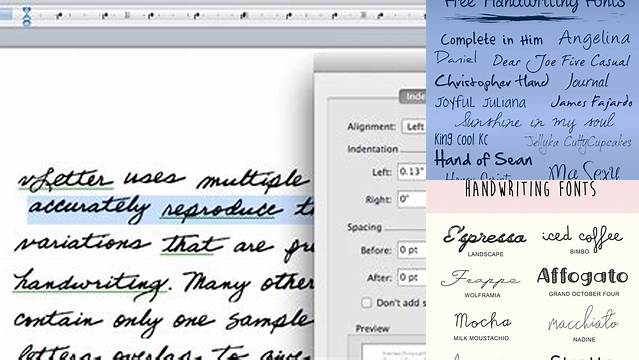
Get Cool Handwriting Fonts For Microsoft Word
Hey everyone! Are you looking to spice up your Microsoft Word documents with a personal touch? Tired of the same old boring fonts? Well, you're in luck! Today, we're diving into the world of free download handwriting fonts for Microsoft Word. I'm talking about those cool, handwritten-style fonts that can make your documents look more friendly, creative, and unique. Whether you're a student, a creative writer, or just someone who loves a good aesthetic, these fonts can seriously level up your game. We'll cover everything from where to find them, how to download and install them, and even some cool ways to use them to make your documents stand out. So, buckle up, because we're about to embark on a font-tastic journey!
Finding the Best Free Handwriting Fonts: Where to Look?
Alright, let's get started! The first step is, of course, to find these amazing free download handwriting fonts for Microsoft Word. Luckily, the internet is a treasure trove of freebies, and fonts are no exception. One of the most popular and reliable places to start is Google Fonts. Google Fonts offers a vast library of fonts, including many beautiful handwriting styles. The best part? They're all free and open-source, meaning you can use them for personal and commercial projects without any worries. Just browse through the categories, and you'll find a section dedicated to handwritten fonts. Look for keywords like “handwriting,” “script,” “brush,” or “casual” to narrow down your search.
Key Considerations When Choosing Handwriting Fonts
When searching for the perfect font, consider its legibility. While a fancy font might look cool, if it's hard to read, it won't be very useful. Pick fonts that are clear and easy on the eyes, especially if you're using them for body text. Another factor to keep in mind is the font's style. Do you want something that looks like real handwriting, a brush script, or a more stylized font? Consider the overall tone and style of your document. If you're aiming for a casual and friendly vibe, choose a font with a relaxed feel. For a more formal look, opt for a neater, more refined handwriting style.
Troubleshooting Common Font Installation Issues
Sometimes, things don't go as planned. Don't worry; it's usually a quick fix! If your new font doesn't appear in Microsoft Word, here are some things to try: make sure you installed the font correctly. Double-check the installation steps for your operating system, ensuring you've copied the font files to the correct location or installed them via the font management tool. Restart Microsoft Word. Sometimes, Word needs a restart to recognize the newly installed fonts. Close Word completely and then relaunch it.
Also, make sure the font file is compatible with your system. Most modern systems support .ttf and .otf font files, but it is worth checking. If you have an older operating system, you might need to convert the font files. Search for an online font converter to ensure that you can use the files. Finally, check for font conflicts. Occasionally, different versions of the same font or similar fonts can cause problems. If you suspect a conflict, try removing the font and reinstalling it. If you are still experiencing issues, you might consider restarting your computer. If you're still stuck after trying these steps, you can always reach out to online forums or support communities for more help.
Unleash Your Creativity: Using Handwriting Fonts in Microsoft Word
Alright, you've got your fonts installed, and now it's time for the fun part: using them! The possibilities are endless when it comes to incorporating handwriting fonts into your Microsoft Word documents. You can use them for headings, titles, and headings to give your documents a personal touch. For example, create unique and eye-catching titles by selecting a bold, stylish handwriting font. This is a fantastic way to make your documents pop.
Think about your audience. Keep the interests and needs of your audience in mind. Make sure you are using fonts and styles that are easy to read and will resonate with your readers. Also, get feedback. Get feedback from your friends, family, or colleagues to get their perspectives. Feedback can give you new insights. Lastly, have fun. Have fun with your creative project. Remember, designing with handwriting fonts should be a fun, creative process. With these things in mind, you are sure to create documents that are both attractive and engaging.